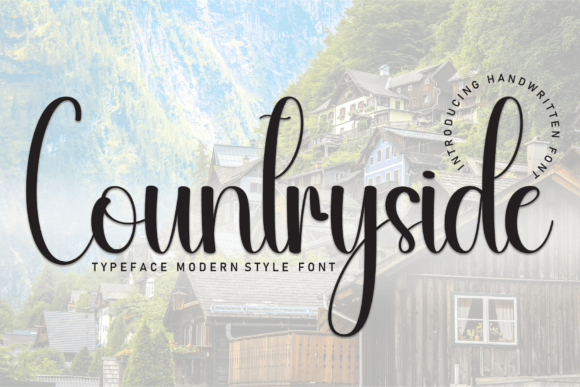
Journey into the world of Countryside Font, a whimsical and captivating script font, meticulously crafted by Strongkeng Old. Allow your creativity to flourish with this charming handwritten font, imbued with a touch of playful elegance. Countryside Font is the ultimate choice for conjuring a warm and inviting ambiance in any of your design endeavors.
Picture this: a rustic wedding invitation adorned with the flowing curves of Countryside Font, evoking a sense of timeless romance. Or perhaps a delightful greeting card, its heartfelt message penned in the playful strokes of this charming font, exuding pure joy. Countryside Font transforms the ordinary into the extraordinary, adding a touch of whimsy to logos, branding, and social media posts, ensuring you stand out from the crowd.
With its ability to effortlessly convey a sense of warmth and authenticity, Countryside Font is the perfect choice for creating designs that resonate with your audience. Let your imagination run wild as you explore the endless possibilities that await you with this captivating font. From heartfelt letters to eye-catching marketing materials, Countryside Font is your gateway to a world of creativity and charm.
So, embark on this enchanting journey with Countryside Font and discover the transformative power of handwritten beauty. Let your designs blossom with a touch of rustic elegance, and watch as your creations captivate and delight your audience. Countryside Font is not just a font; it's an invitation to embark on a creative adventure, where your imagination knows no bounds. Embrace the magic of Countryside Font today and experience the joy of creating designs that truly touch the heart.